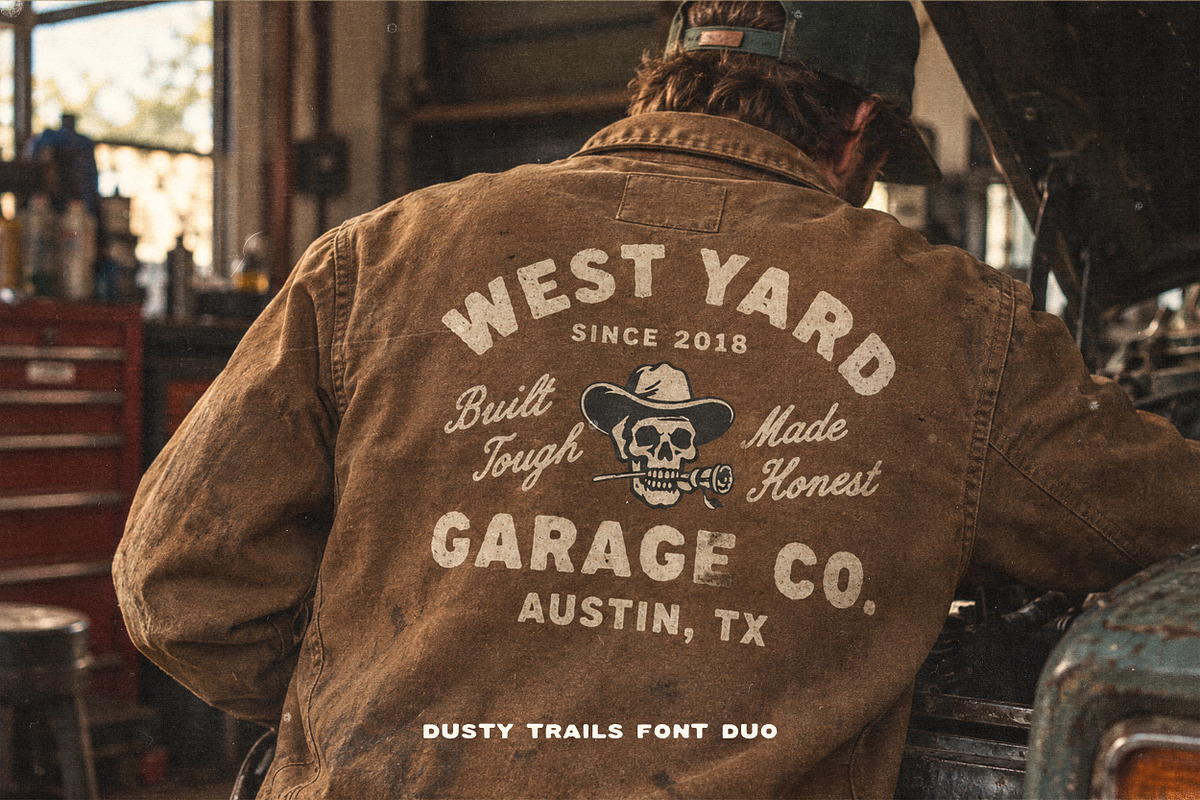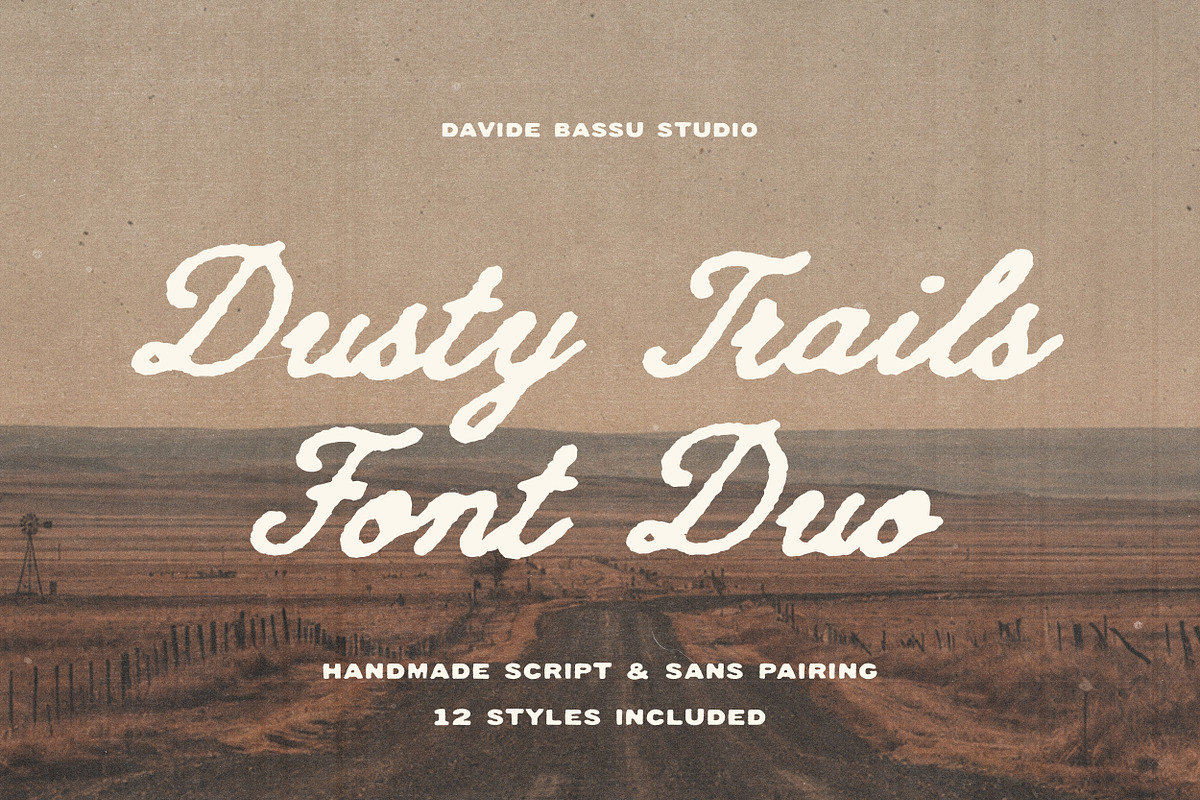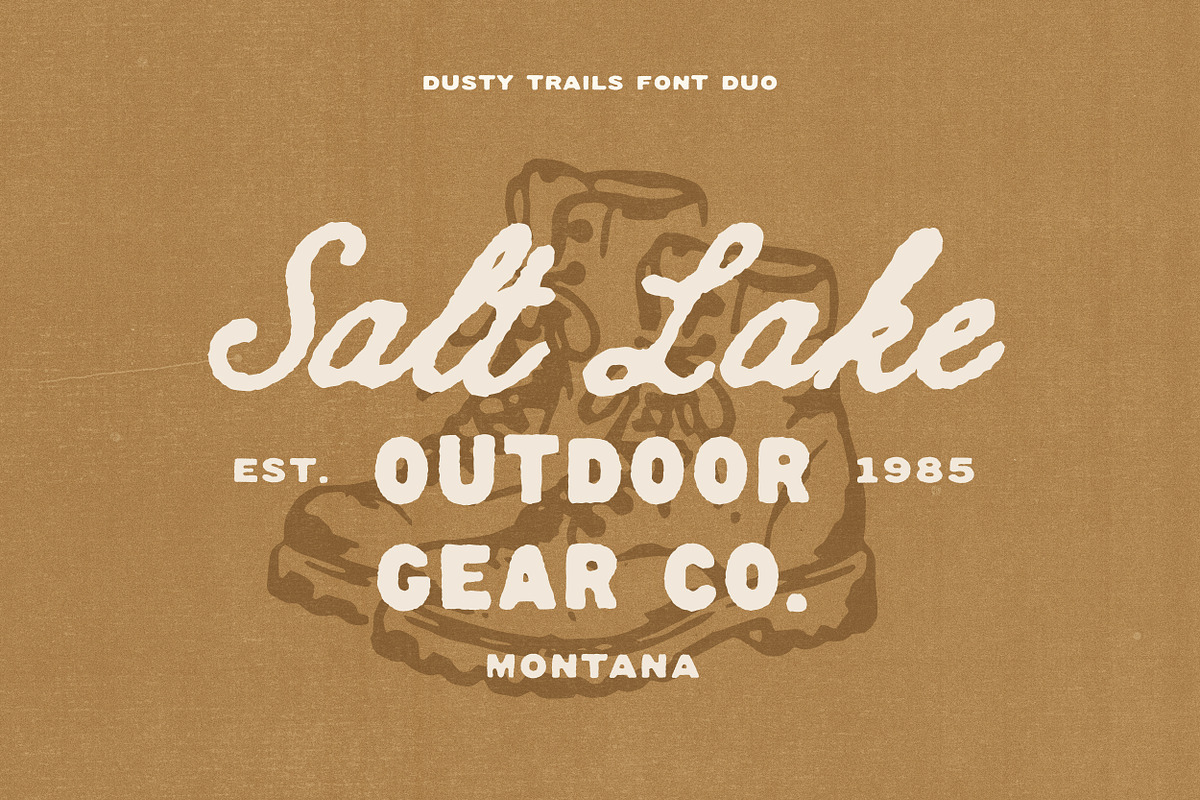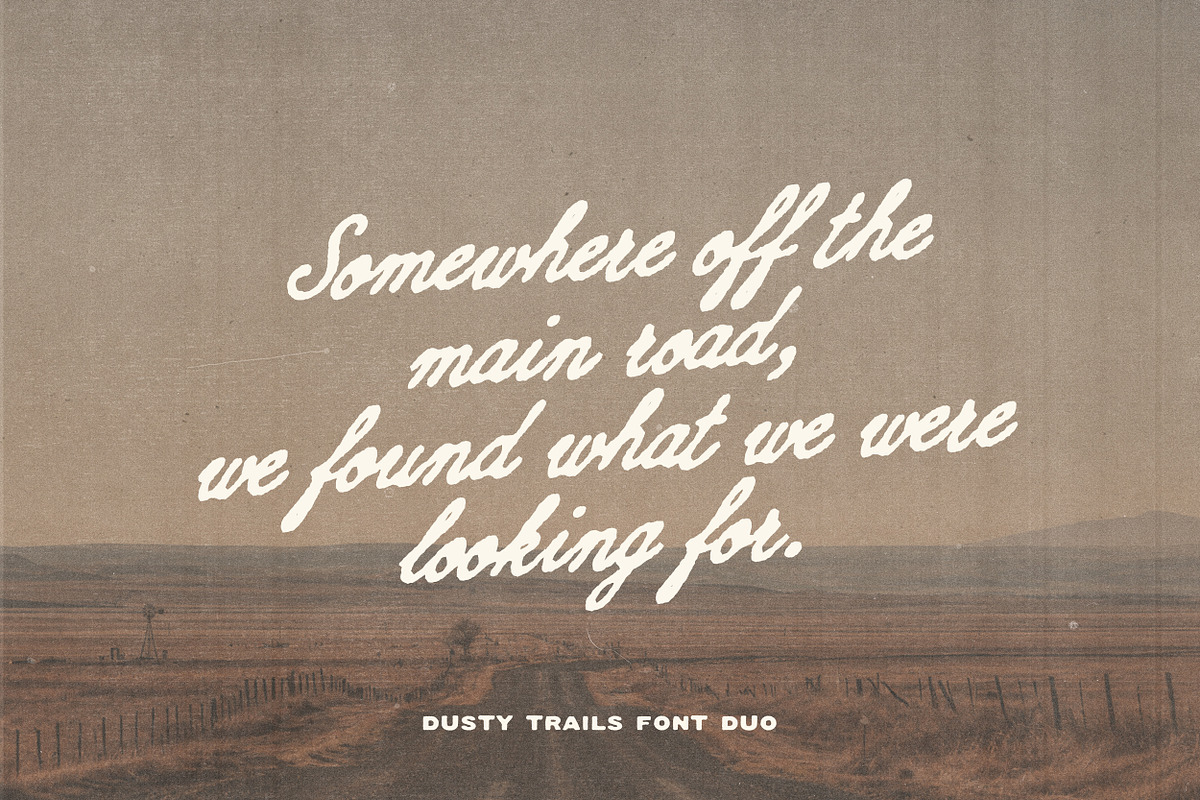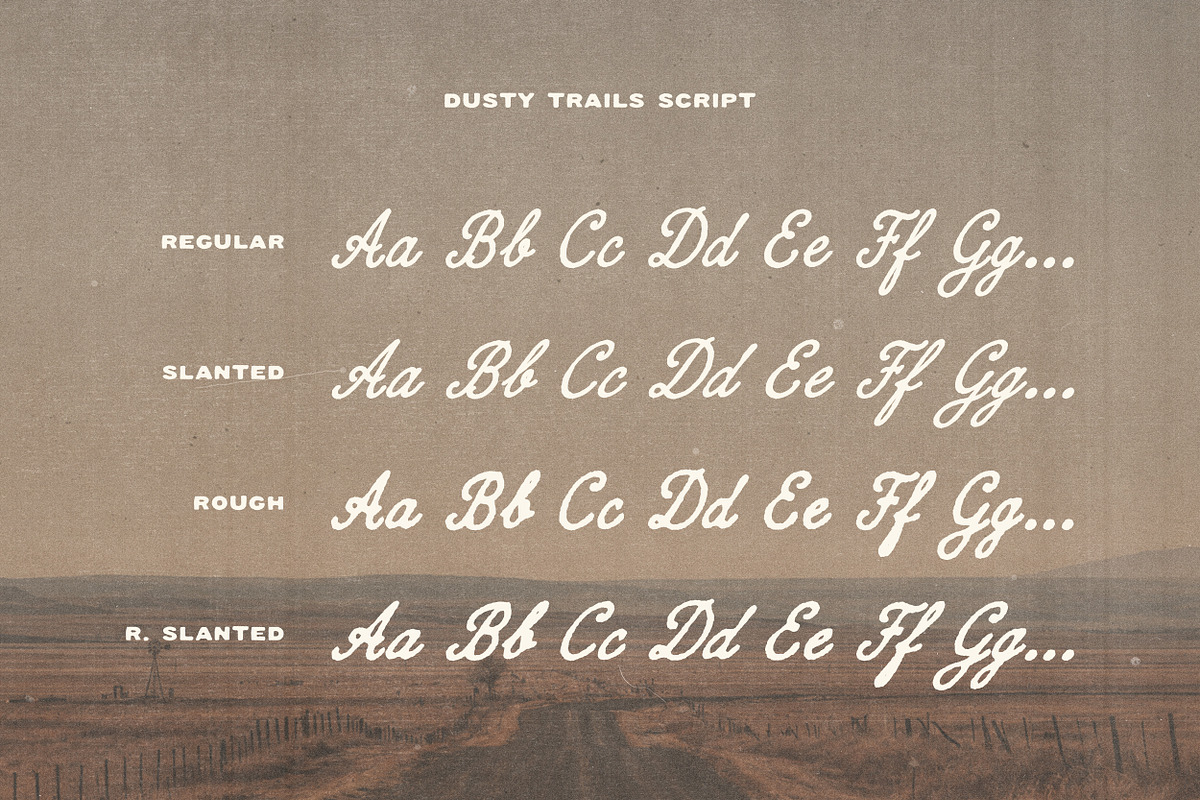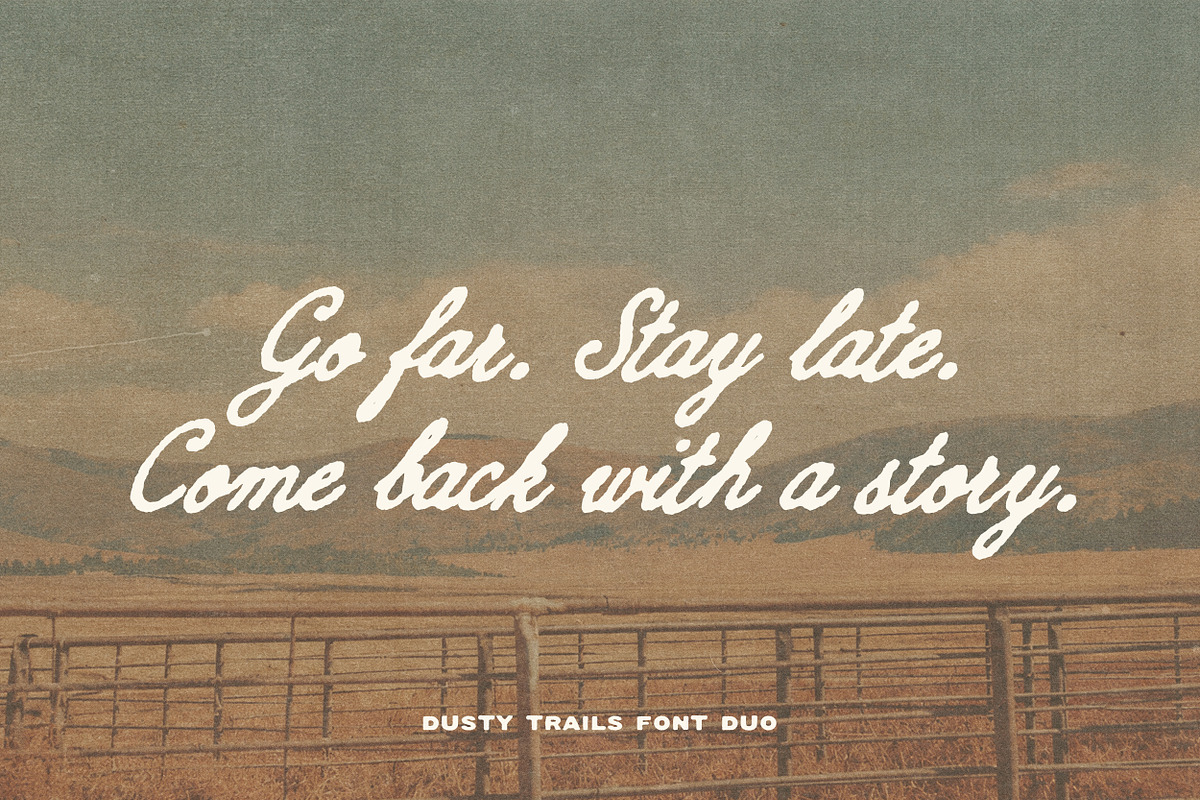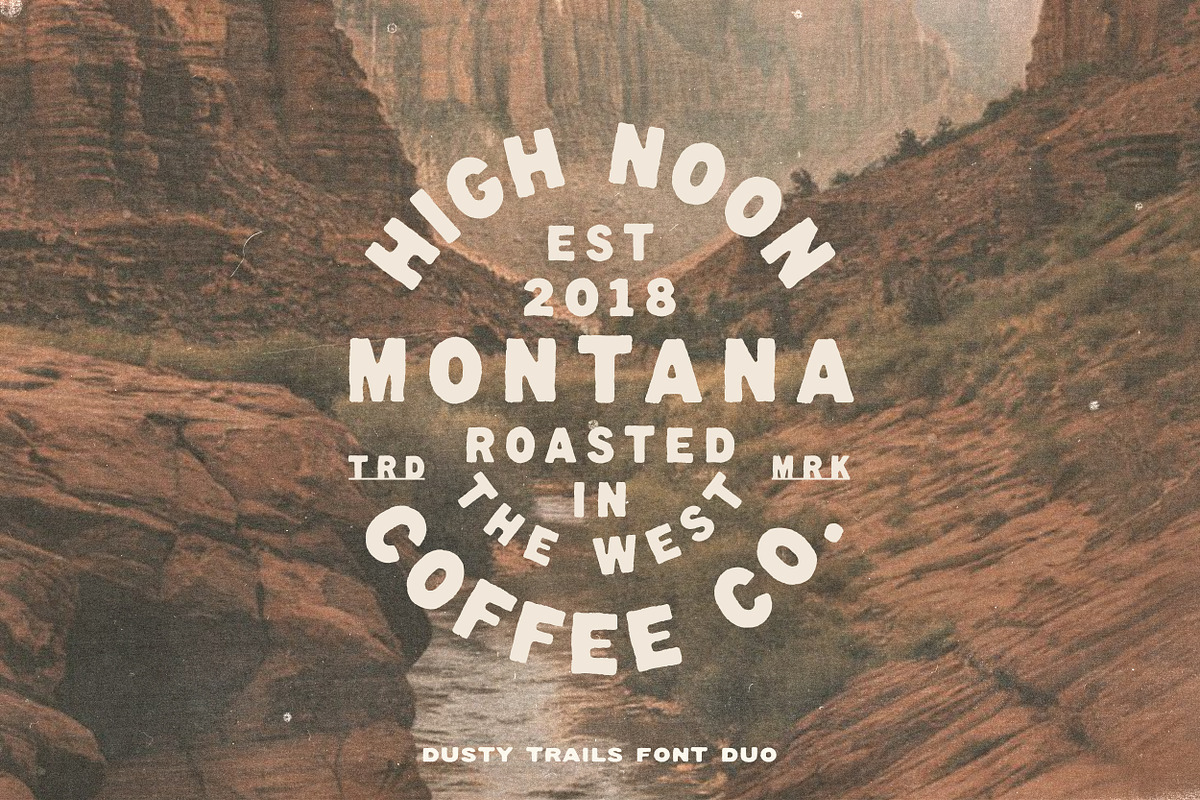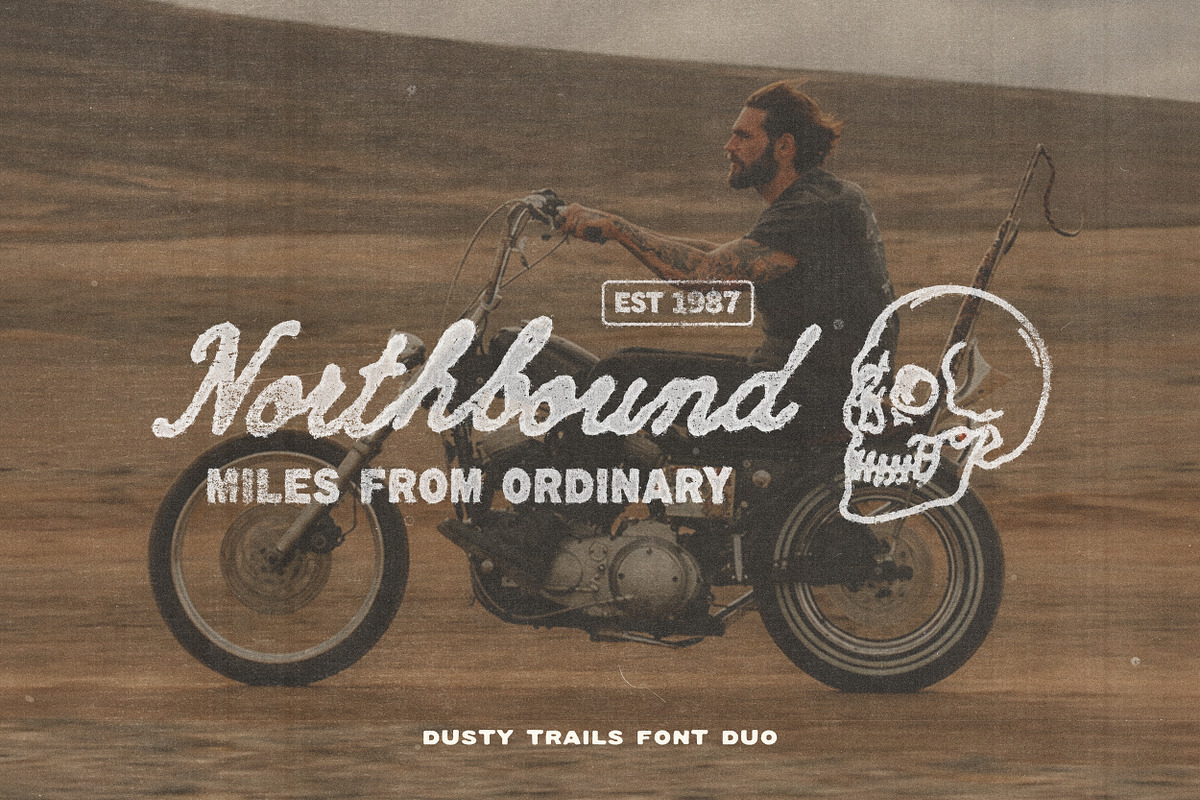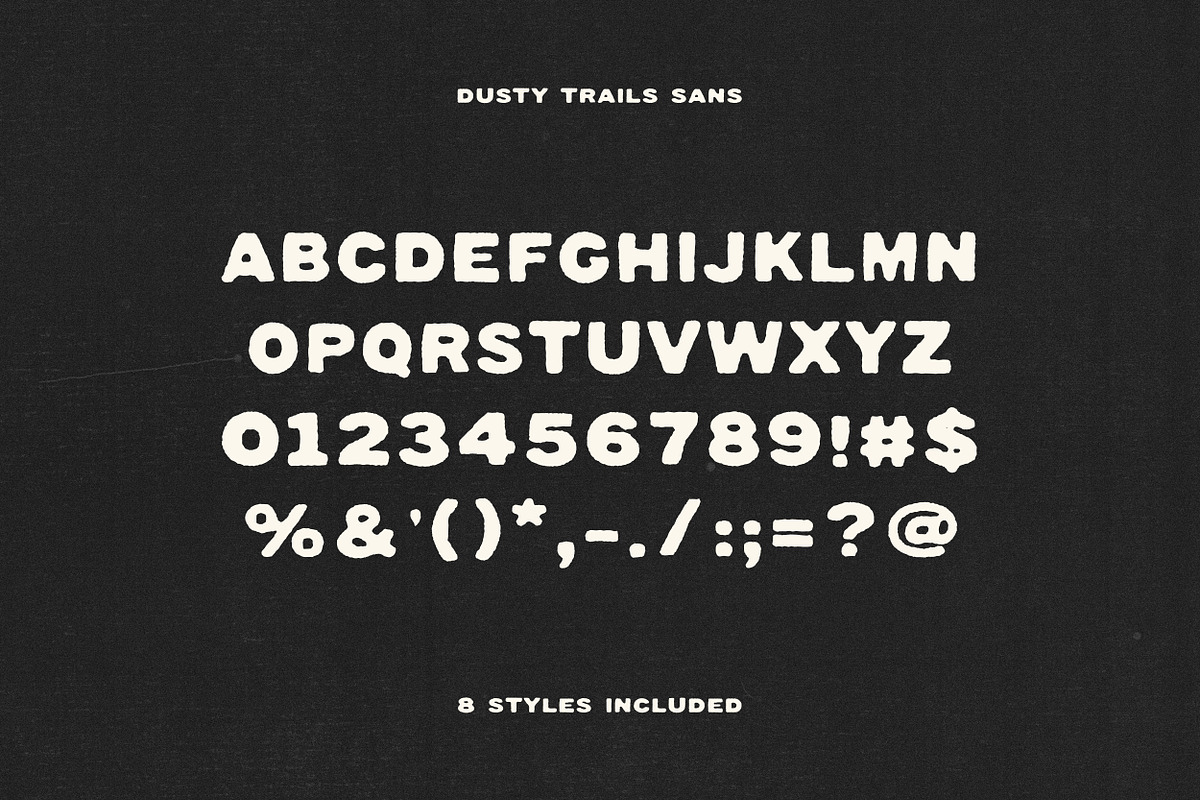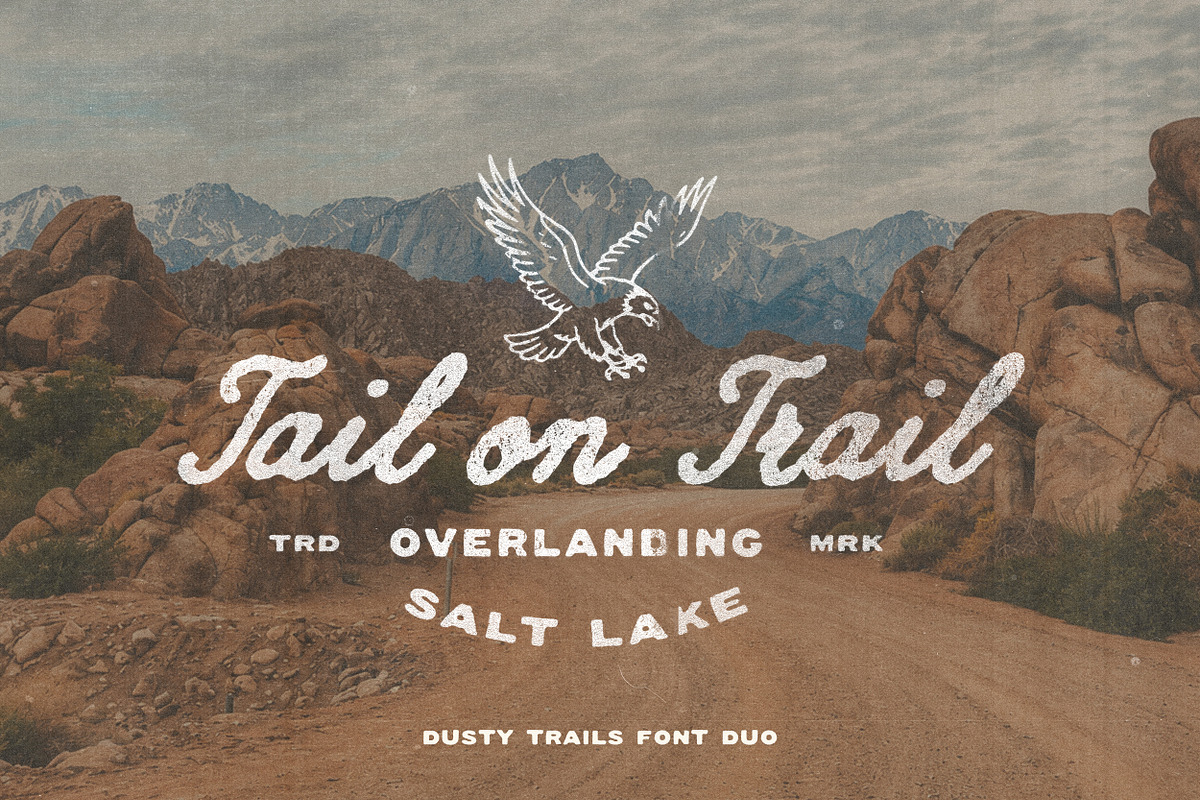
Dusty Trails
Dusty Trails is a handmade font duo inspired by open roads, worn-out gear, old garage signs and the freedom of going somewhere with no particular place to be.
Pairing a bold, imperfect Sans with a character-rich vintage Script, the collection brings a warm, lived-in feel to apparel, outdoor branding, packaging, badges, posters and merchandise.
With 12 styles in total, Dusty Trails gives you different widths, proportions and textures to play with while keeping everything naturally connected.
Dusty Trails Sans — 8 Styles Regular · Wide · Super Wide · Tall · Soft · Soft Wide · Soft Super Wide · Soft Tall
Dusty Trails Script — 4 Styles Regular · Slant · Rough · Rough Slanted